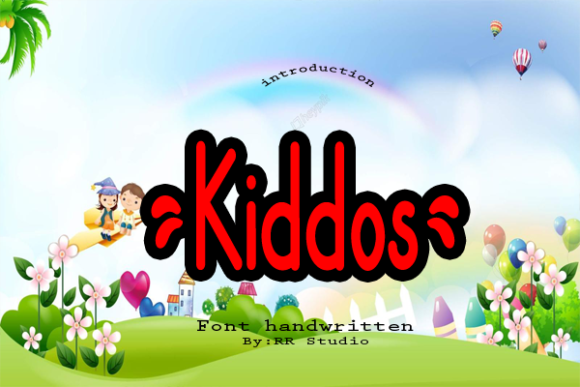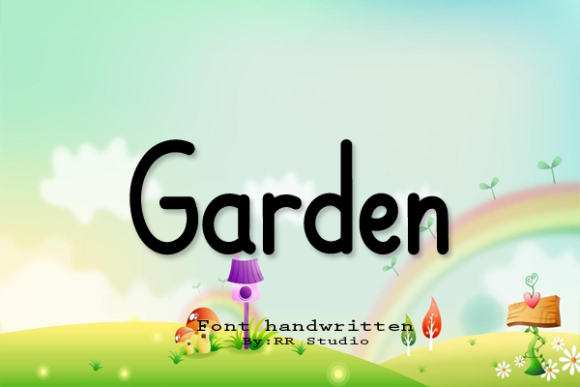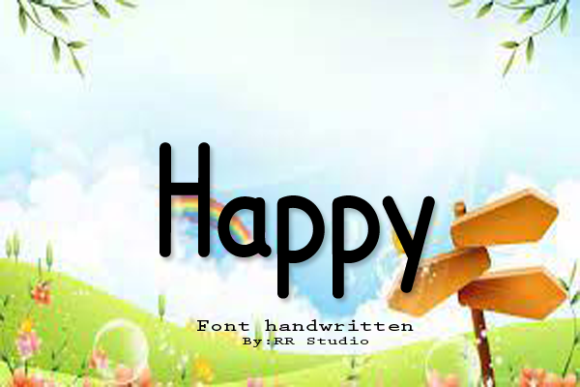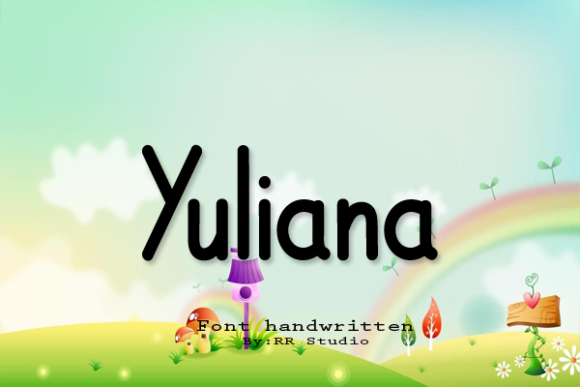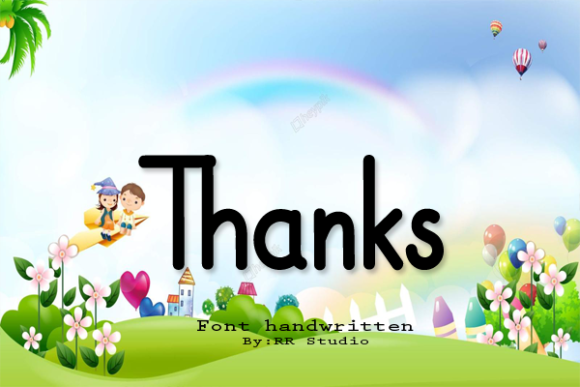
Kiddos Font
About Kiddos Font
Kiddos is a fun friendly and adaptable handwritten font. It looks cute on invitations, thank you cards, quotes, greeting cards, logos, business cards and every other design which needs a casual, trendy touch.